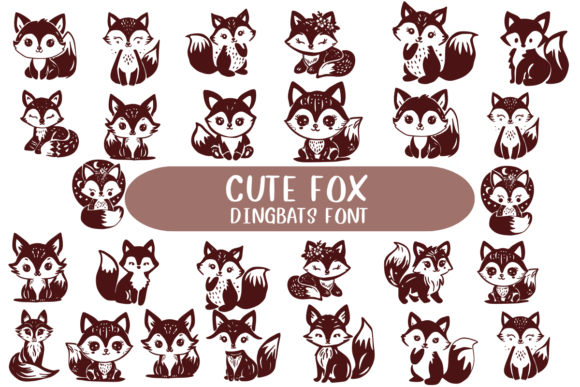
Cute Fox Font: The Adorable Way to Write with Fox Pictures
Are you tired of using the same old boring fonts for your digital content? Do you want to add a touch of whimsy and fun to your writing? Look no further than the Cute Fox Font! This special type of font replaces each letter with a cute little fox, making it like writing with adorable fox pictures instead of regular letters.
What is Cute Fox Font?
The Cute Fox Font is a unique and playful font that uses images of cute foxes to represent each letter of the alphabet. It’s a fun way to add some personality to your writing, whether you’re creating digital content, designing graphics, or just want to add some flair to your text messages. With the Cute Fox Font, you can say goodbye to boring, traditional fonts and hello to a world of adorable foxes.
How Does it Work?
Benefits of Using Cute Fox Font
- Adds visual interest: The Cute Fox Font is a great way to add some visual interest to your writing. Whether you’re creating digital content, designing graphics, or just want to add some flair to your text messages, this font is sure to grab attention.
- Playful and fun: The Cute Fox Font is perfect for anyone who wants to add a touch of whimsy and fun to their writing. It’s a great way to lighten the mood and make your content more engaging.
- Unique and creative: The Cute Fox Font is a unique and creative way to express yourself. Whether you’re a writer, artist, or just someone who loves to have fun, this font is a great way to showcase your personality.
Who Can Use Cute Fox Font?
Cute Fox Font Examples
Here are some examples of what the Cute Fox Font looks like:
Hello, world!
This is an example of the Cute Fox Font.